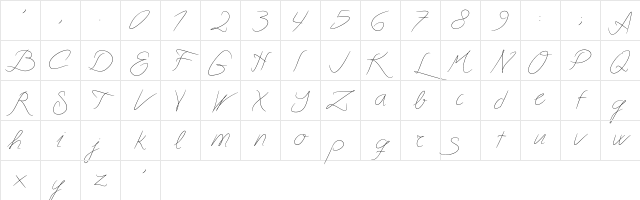
Astralasia Medium Free Font
Astralasia Medium
Complete Astralasia Medium glyph index. Displaying only characters natively supported by Astralasia Medium font.
Design Context for Astralasia
Astralasia is a composed and adaptable typeface that performs quietly and consistently across a wide range of design contexts.